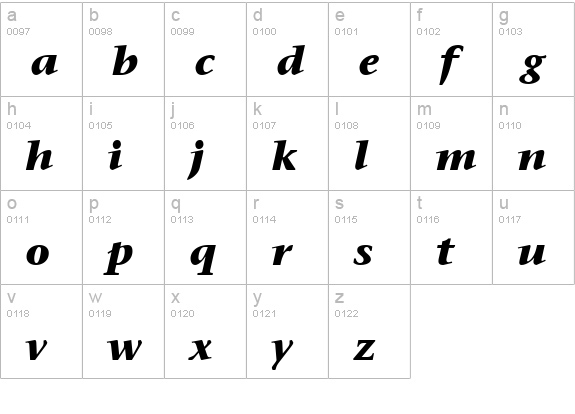
Mesouran Serif Black SSi Bold Italic is a maximum-weight, dramatic, italic variant in the Mesouran typeface family \xE2\x80\x94 well suited to maximum-impact headlines, posters, and packaging.
Mesouran Serif Black SSi Bold Italic font is a stunning and bold typeface that exudes elegance and sophistication. Its strong, thick strokes combined with italicized angles create a sense of power and authority. The unique design of this font makes it perfect for headlines, titles, and branding materials that aim to make a statement. What sets Mesouran Serif Black SSi Bold Italic font apart is not only its striking appearance but also the fact that it is free to download. This means that you can easily access and use this high-quality font for your personal and commercial projects without any cost. Simply visit FontsMarket.com to download Mesouran Serif Black SSi Bold Italic font and add a touch of boldness and flair to your designs.